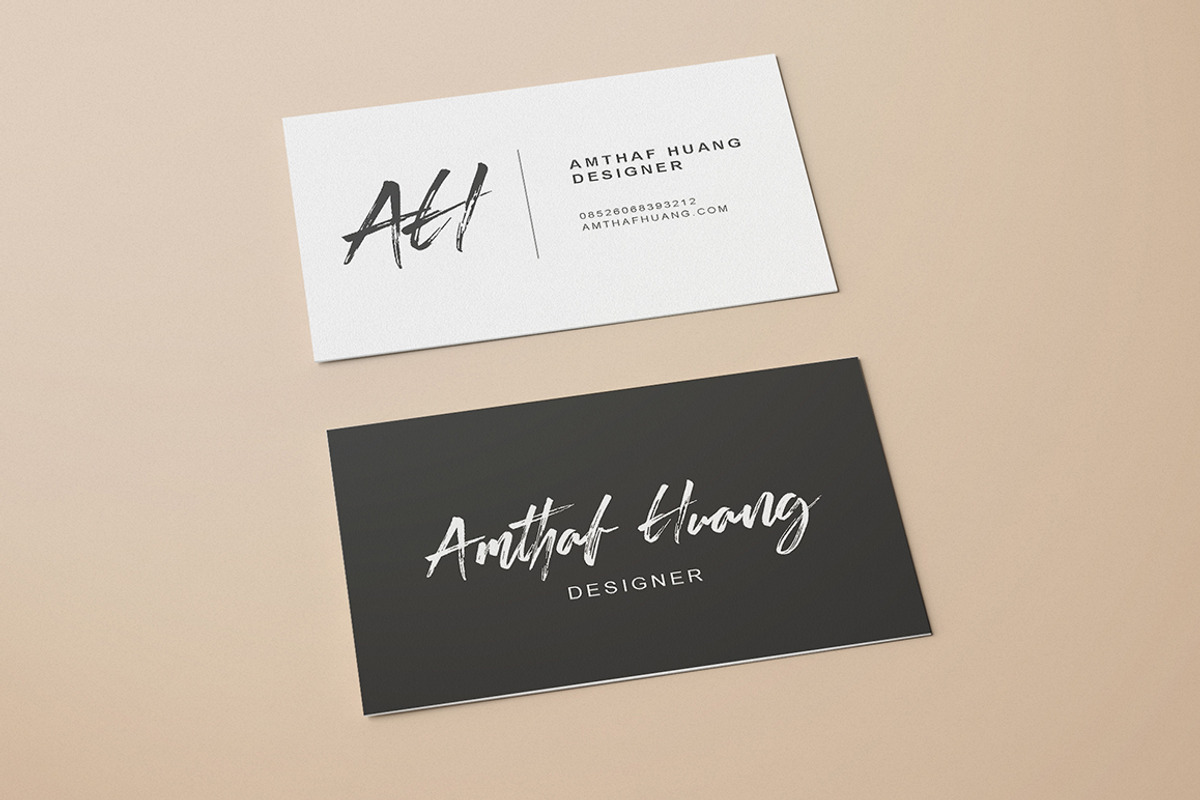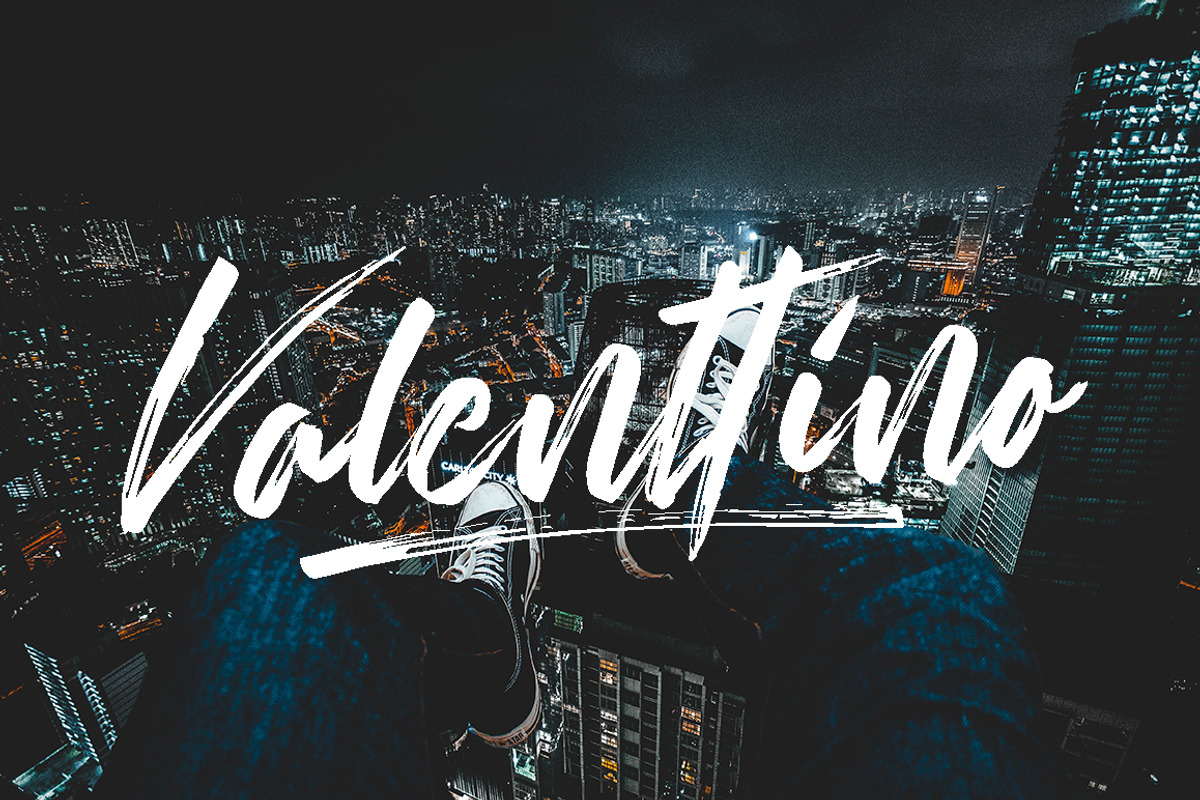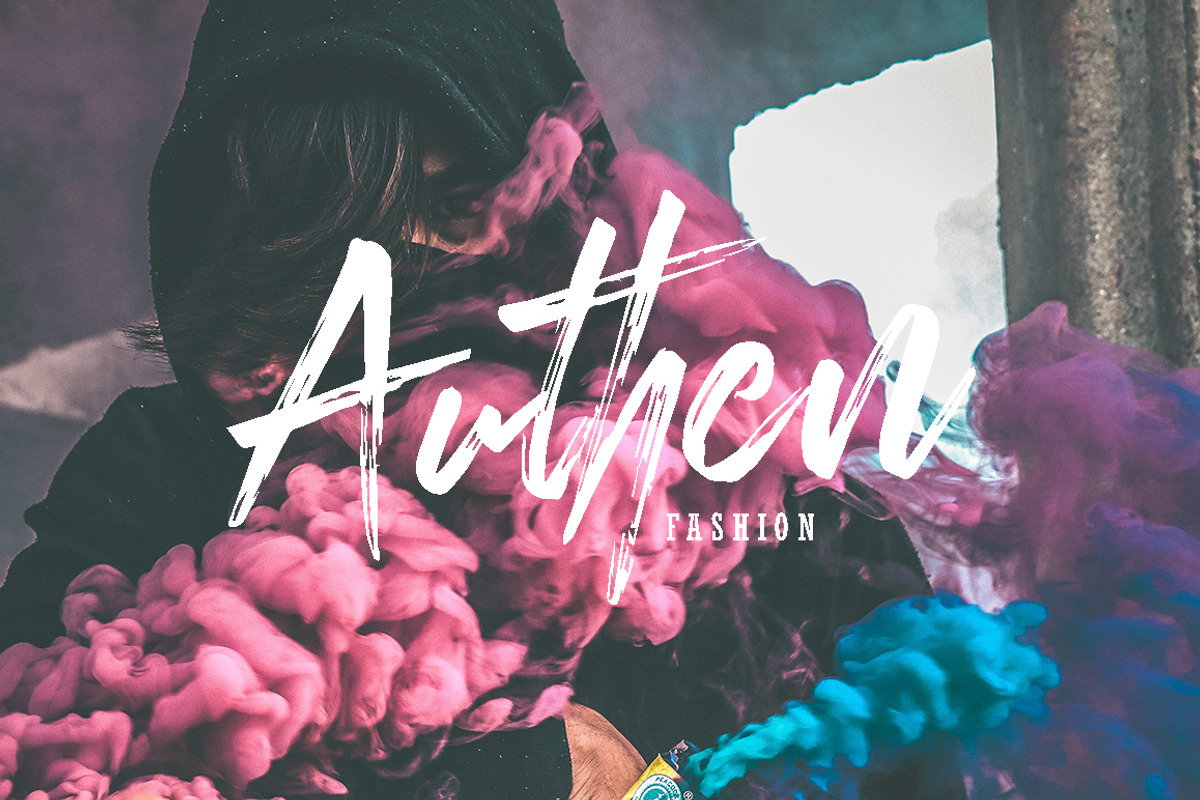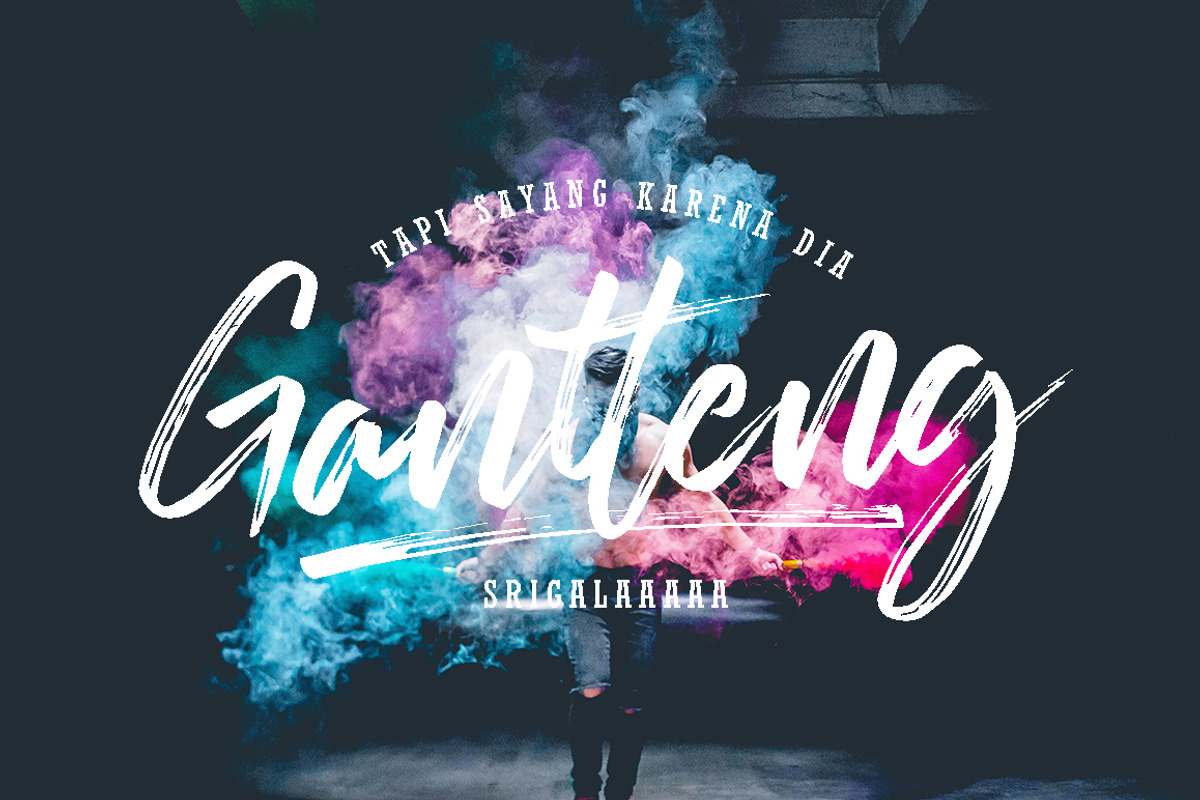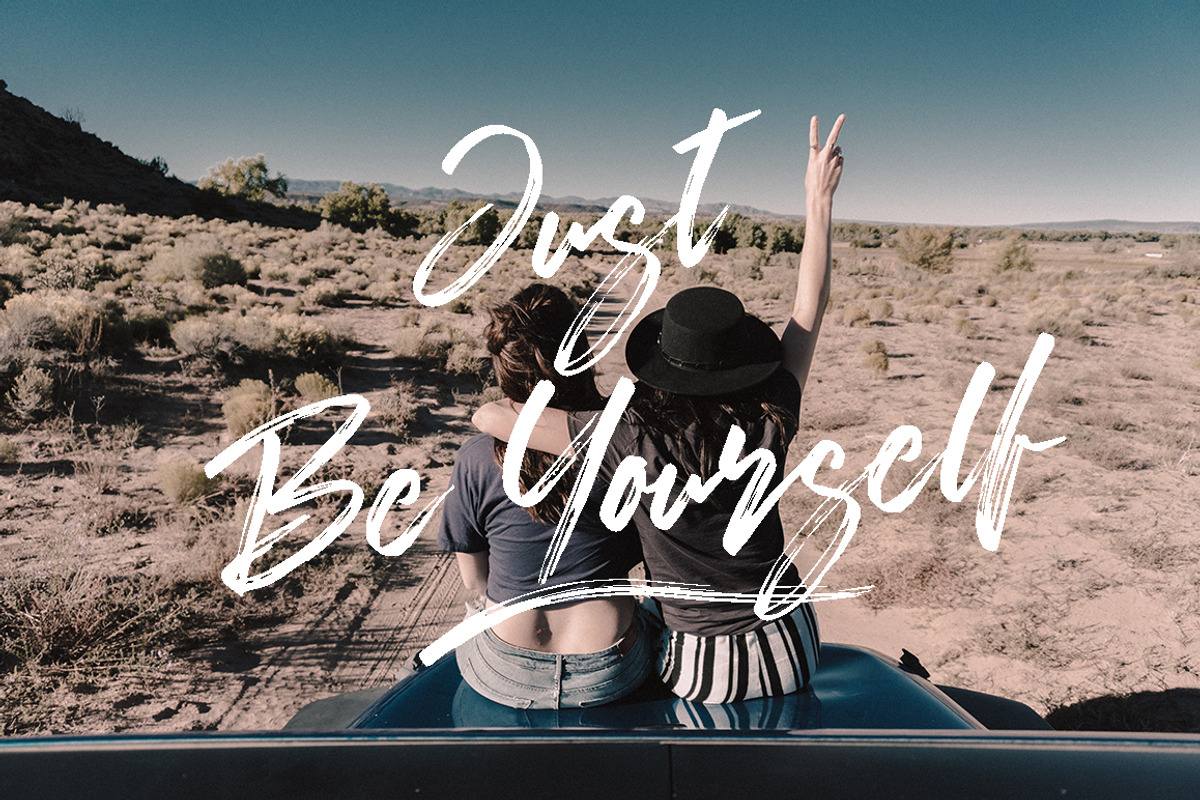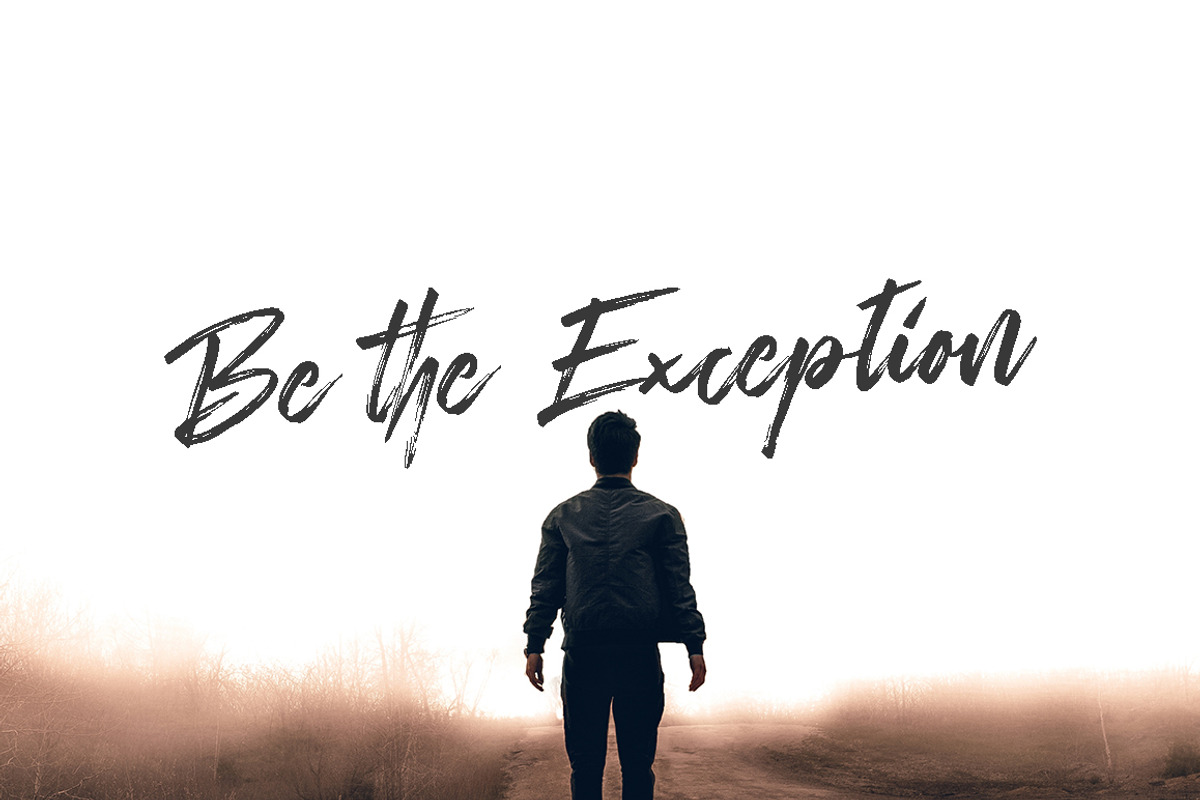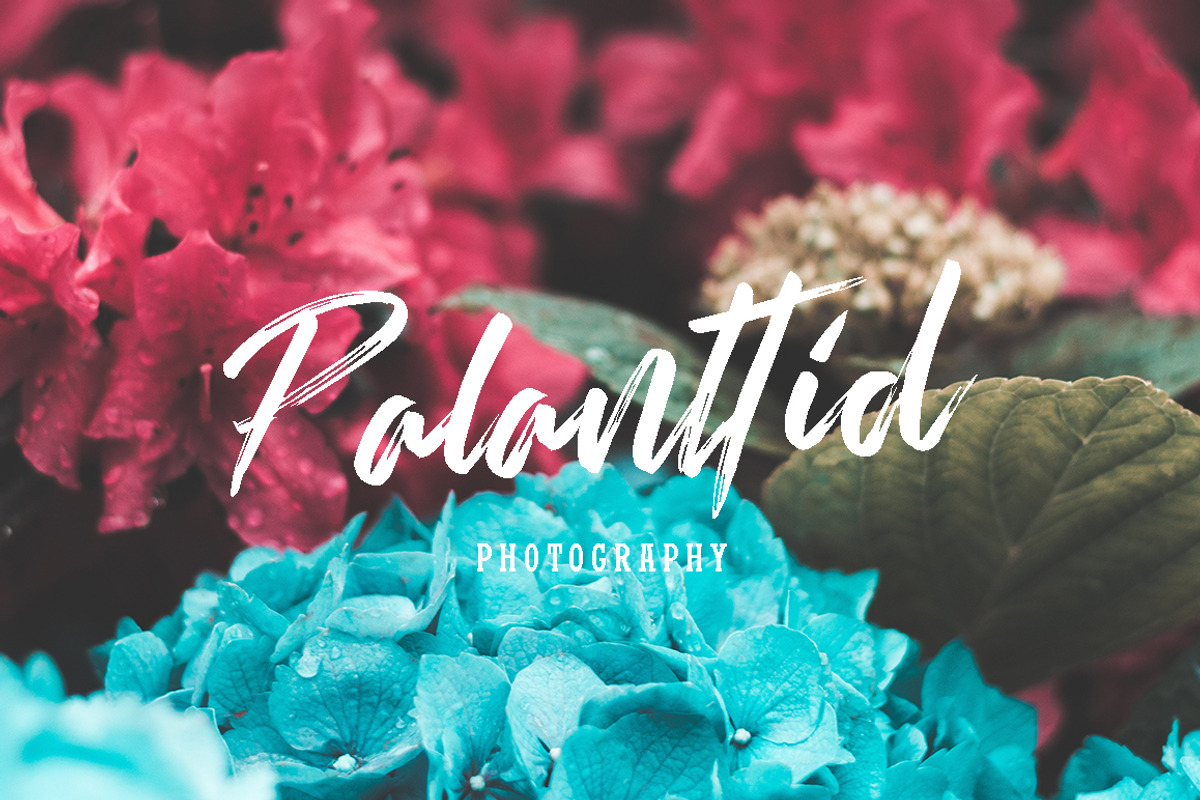
Rallifornia Brush Font
Rallifornia is modern Brushfont, with modern Brush style, this font will perfect for many different project ex: quotes, logo, blog header, poster, wedding, banding, fashion, apparel, letter, invitation, stationery, etc...
Why Rallifornia Brush Font is worth a look
Rallifornia Brush Font by MissinkLab Studio fits naturally into Branding, posters, packaging, typography.